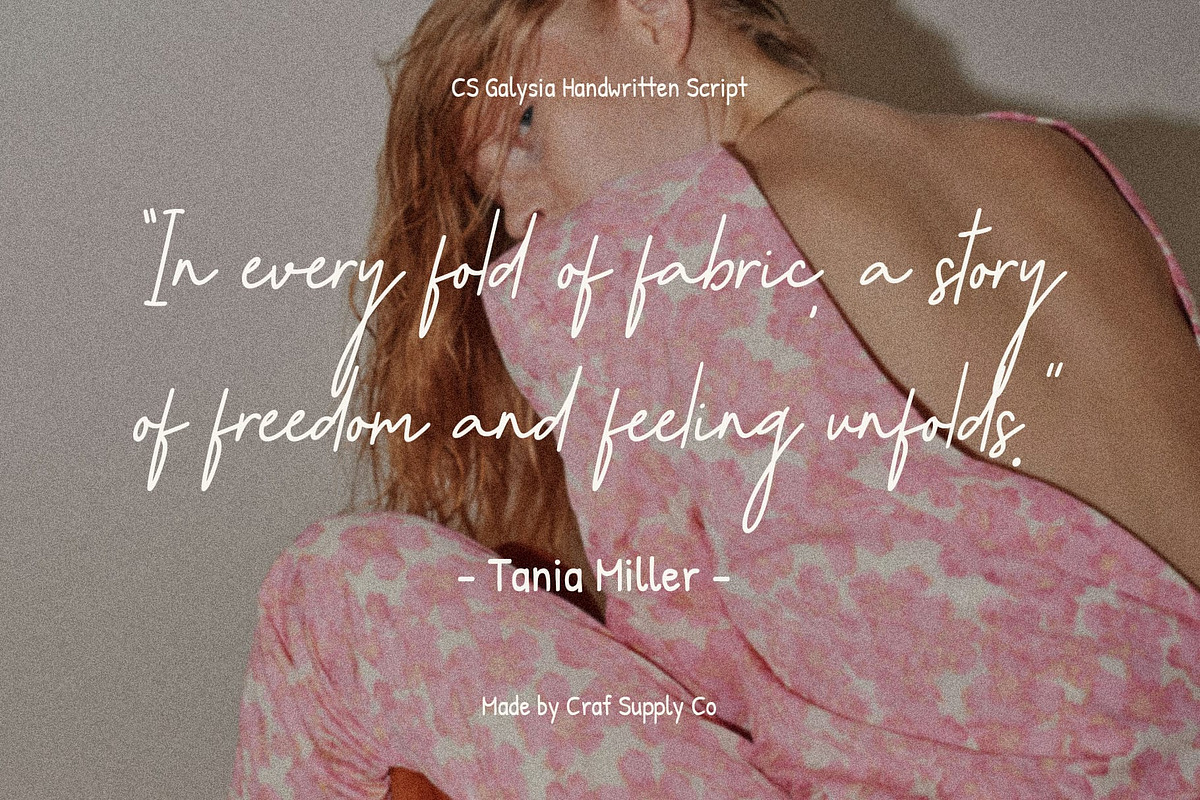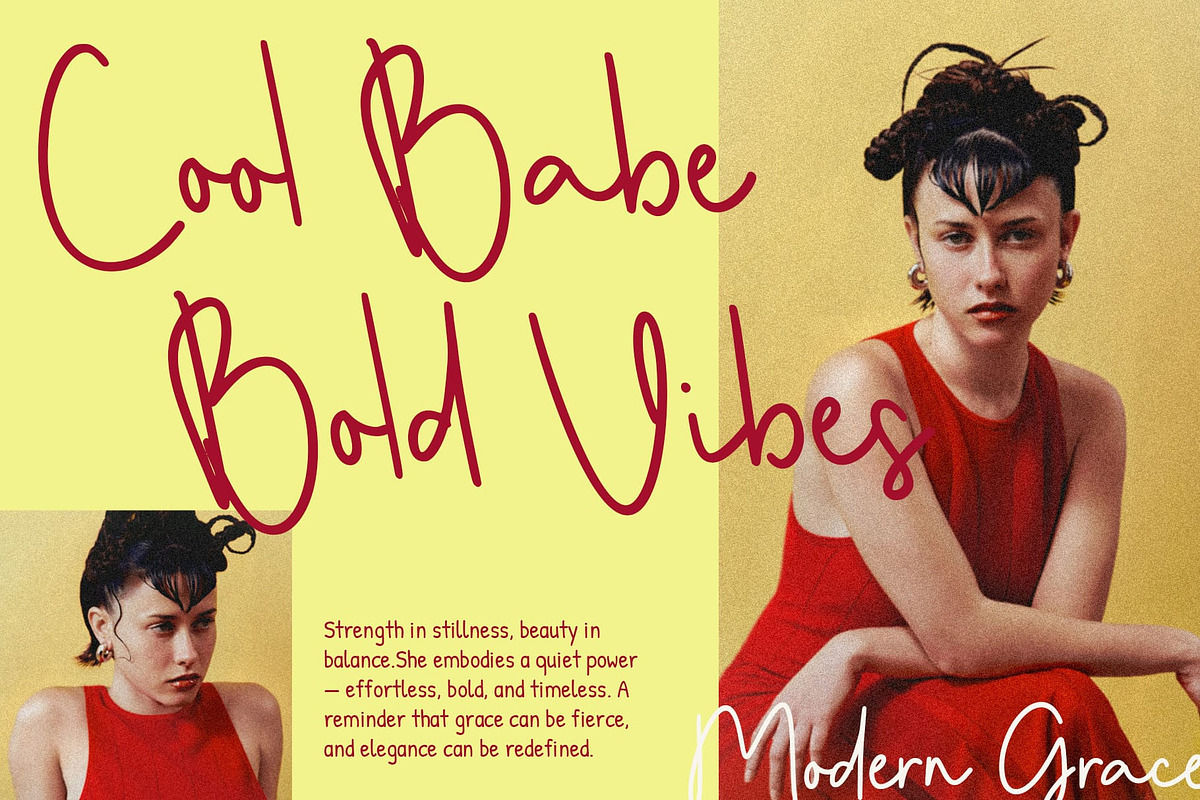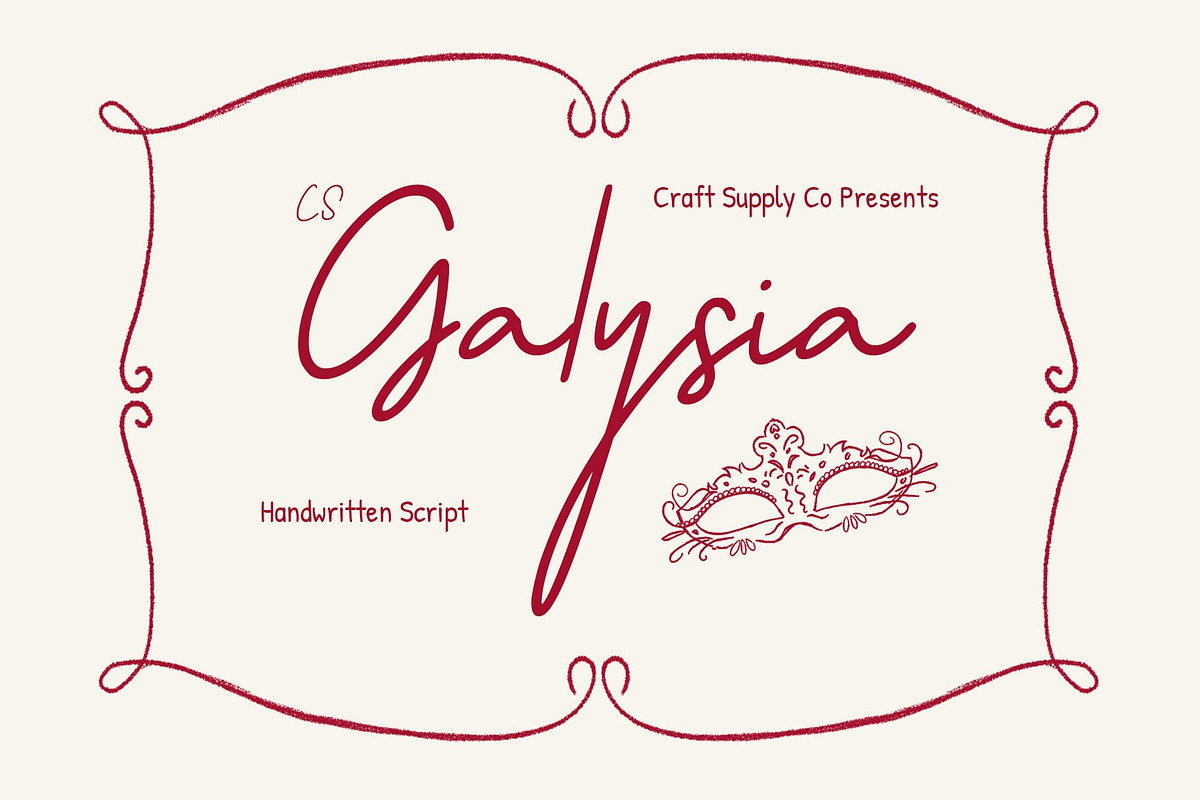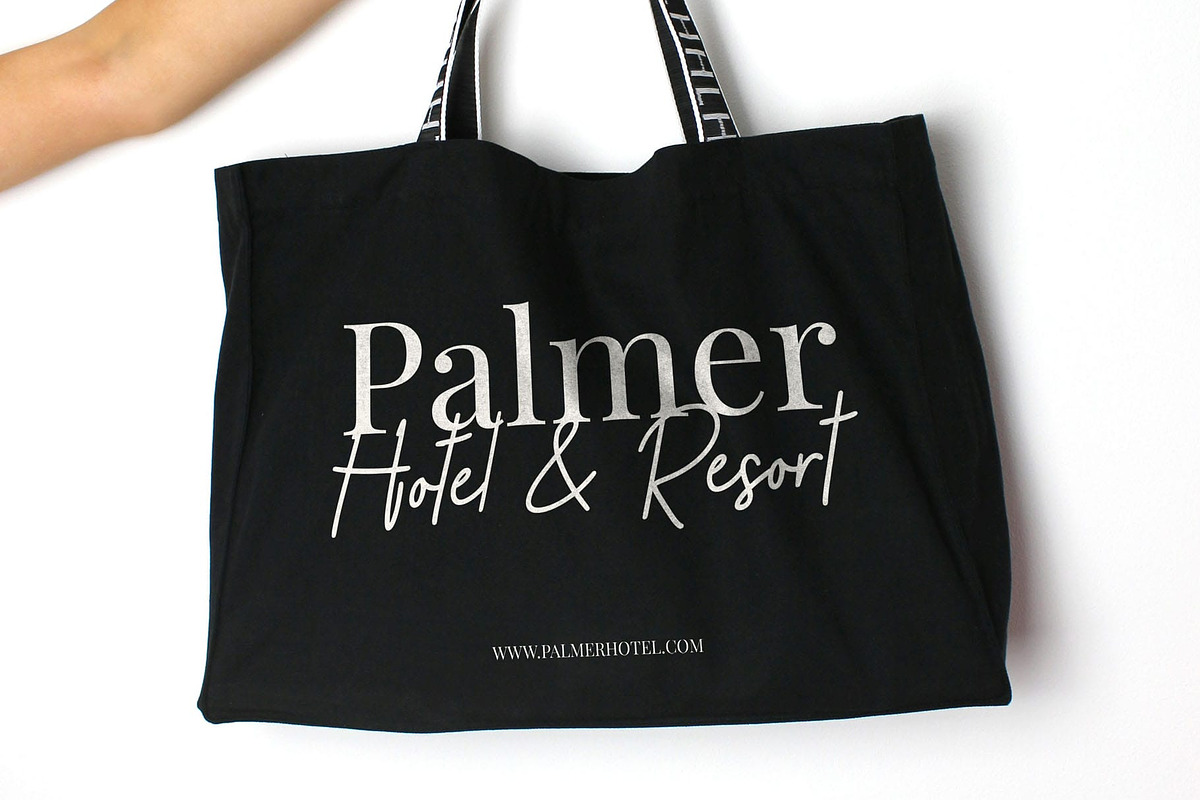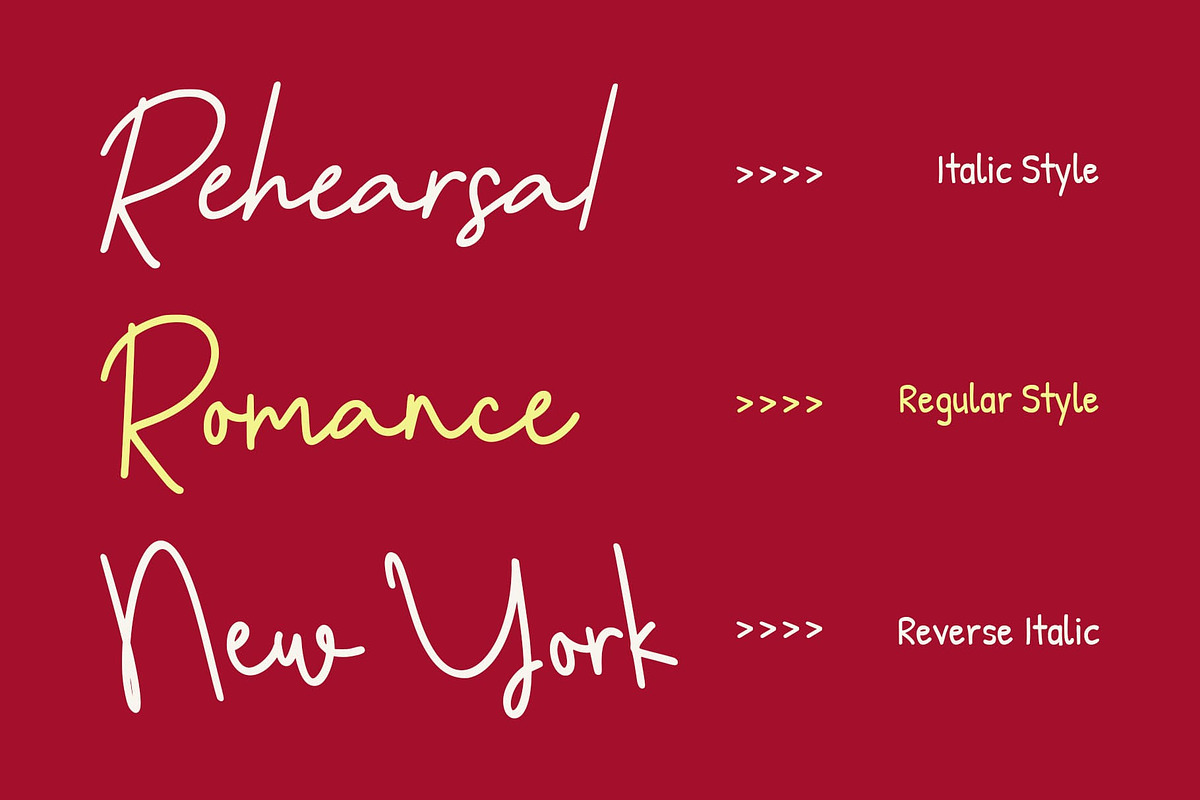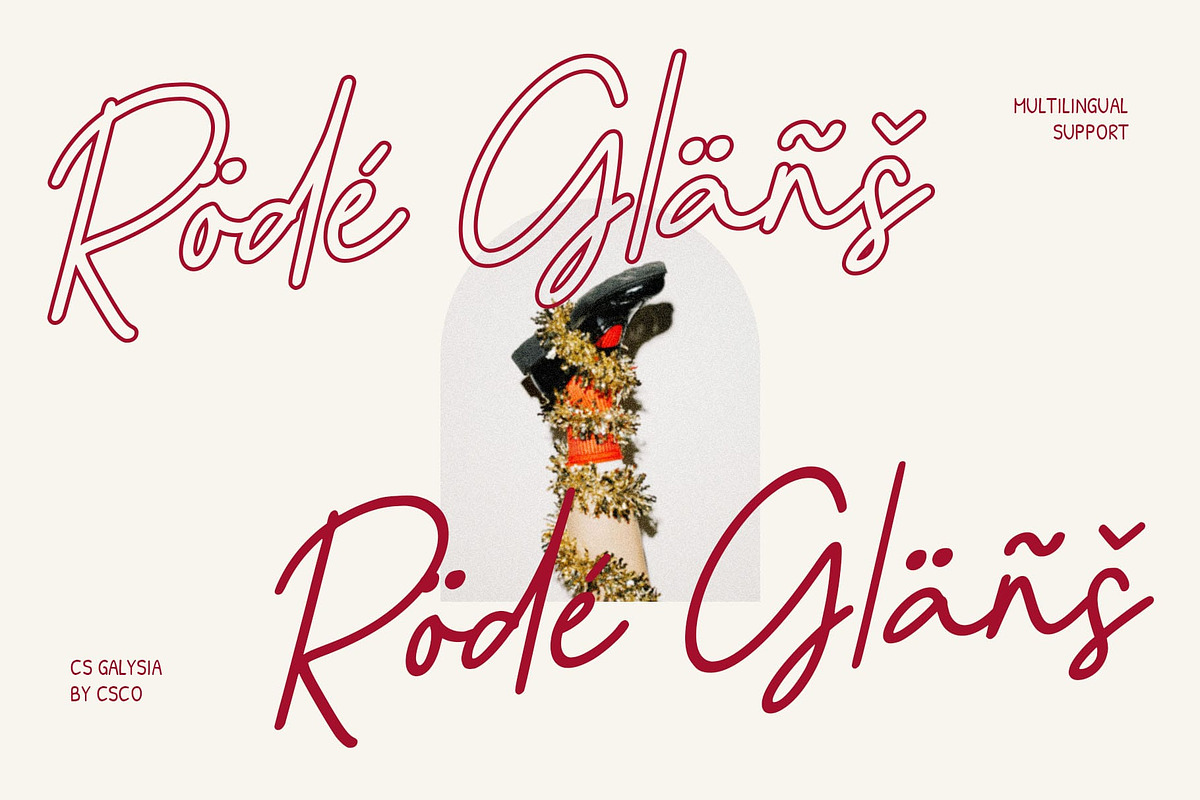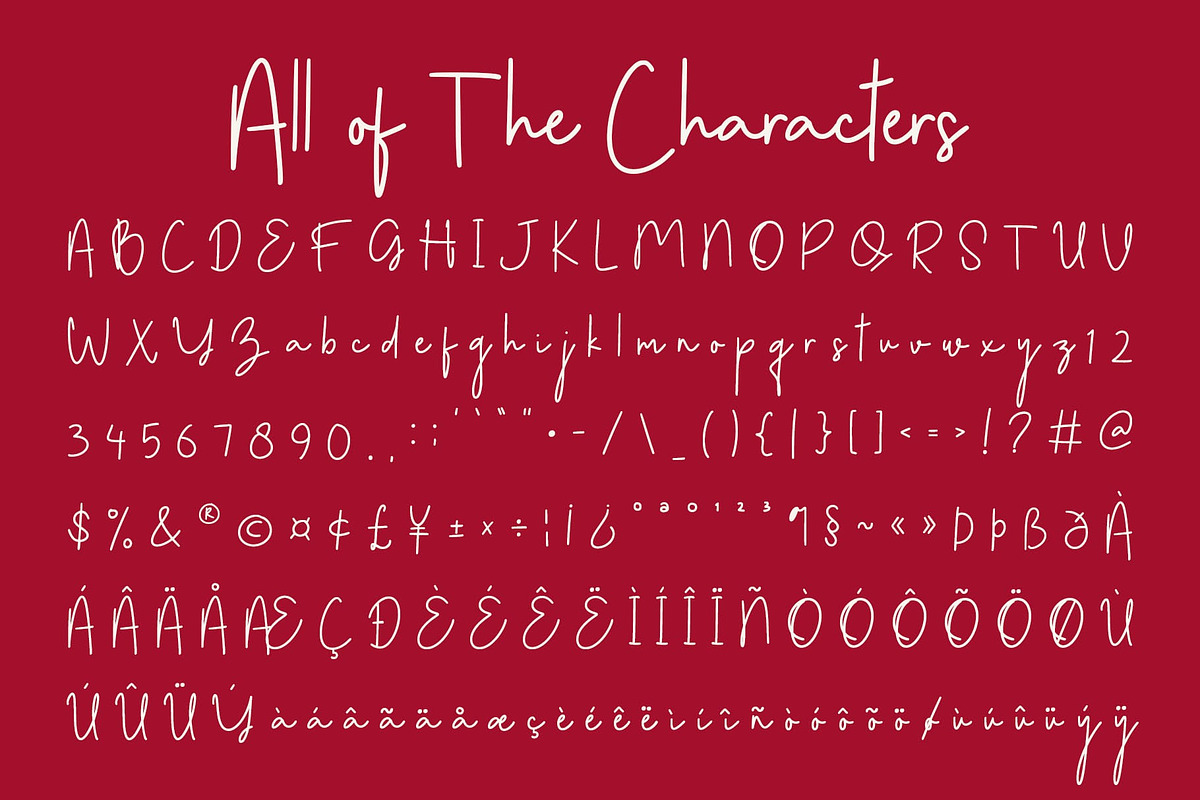
CS Galysia – Handwritten Script Font
CS Galysia – Romantic Handwritten Script Font: Mediterranean Elegance in Motion
Flowing Beauty and Timeless Charm This is a handwritten script font that embodies the warmth and refinement of Mediterranean handwriting. Its flowing strokes and natural rhythm create a sense of effortless elegance, reminiscent of handwritten letters from an Italian coastal villa. Each curve and connection is thoughtfully designed to convey grace, intimacy, and charm.
Romantic Spirit with Artistic Sophistication Infused with romantic undertones, this font balances softness and style with ease. The script’s graceful lines and gentle contrast make it perfect for projects that require emotional depth and aesthetic refinement. It carries an artisanal touch expressive yet poised ideal for those who value beauty in detail.
Perfect for Luxury and Lifestyle Design Whether used for wedding invitations, high-end branding, or luxury packaging, this font elevates your visuals with a sense of sophistication. Its handwritten quality evokes personal care and authenticity, while its stylish structure ensures a professional finish suitable for premium products and elegant events.
Versatile and Enduring Appeal This font adapts beautifully across formats, from logos and stationery to digital campaigns and editorial layouts. Its romantic flow and timeless character make it a versatile choice for designers seeking to combine heartfelt expression with refined artistry a true embodiment of Italian-inspired elegance.